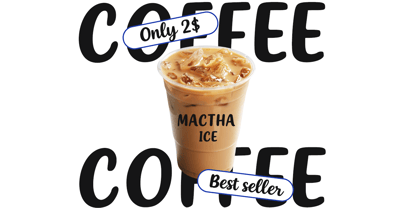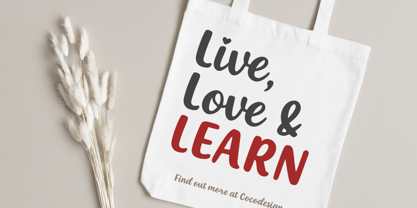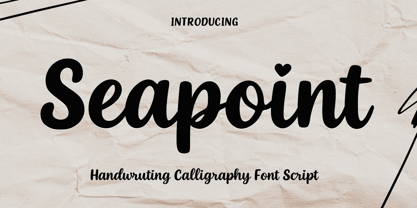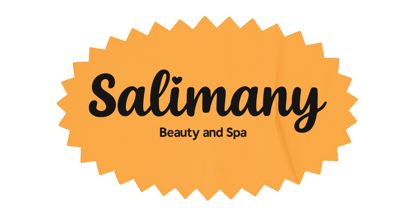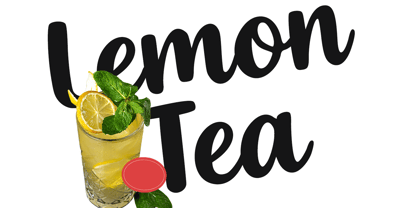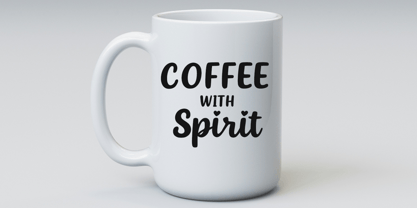
Seapoint
by Cocodesign
The Seapoint Font Family was designed by Muhammad Zaini and published by Cocodesign. Seapoint contains 2 styles and family package options. More about this family
Seapoint is a bold handwritten script font with smooth, confident strokes. Its rounded curves and friendly letter shapes create a warm, approachable style, while the heart-shaped dot adds a playful touch to the design. Ideal for branding, lifestyle products, social media content, packaging, and decorative projects, Guily blends casual handwriting character with clean, balanced typography. Designed to remain legible in a wide range of sizes, making it versatile for both headings and design accents.
Designers: Muhammad Zaini
Foundry: Cocodesign